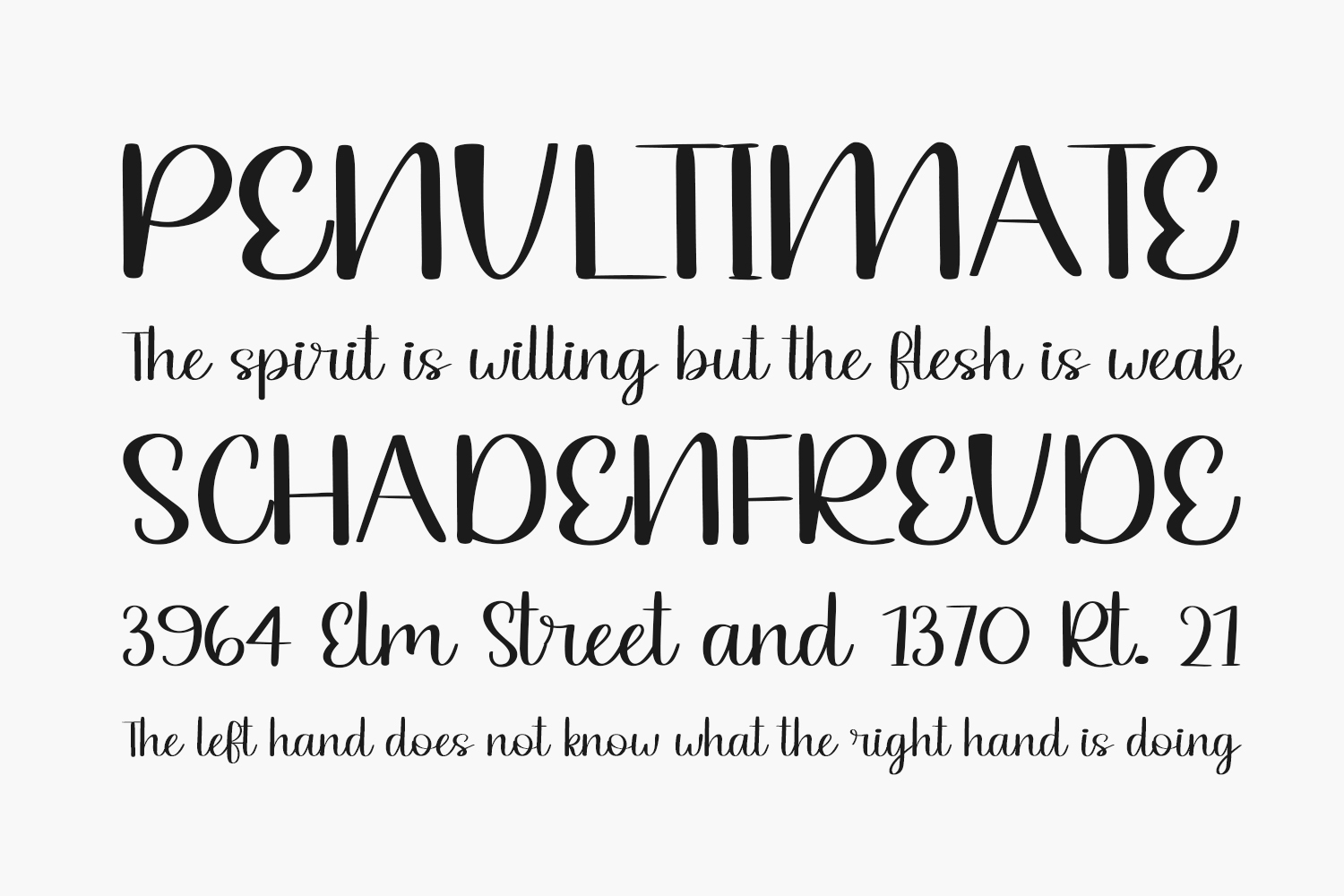
Barbie Free Font is a stunning and airy handwritten font that exudes a distinctive charm and leaves a lasting impression. This font is perfect for adding a touch of luxury to your design projects, enhancing their visual appeal. Let Barbie Free Font ignite a sense of elegance and sophistication in all your creative endeavors. Barbie Free Font is free for personal use only. Please purchase the full version for commercial use.